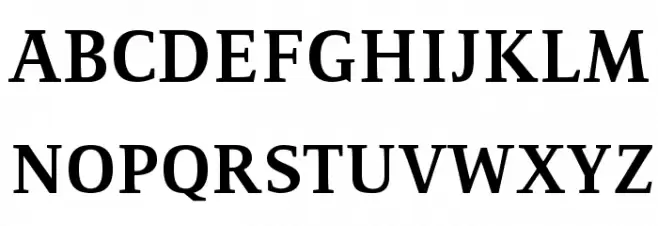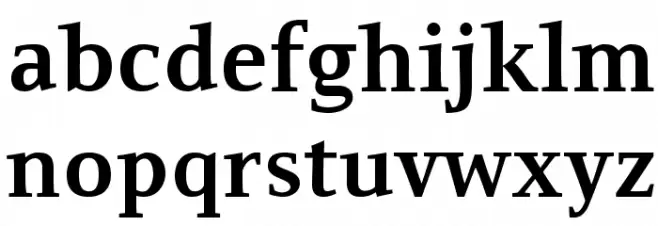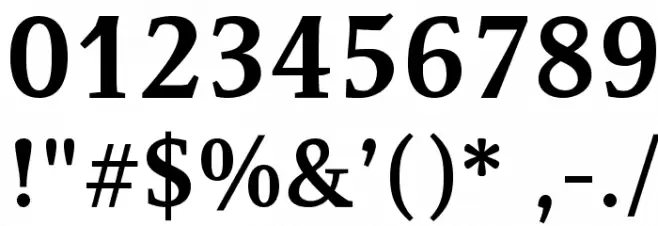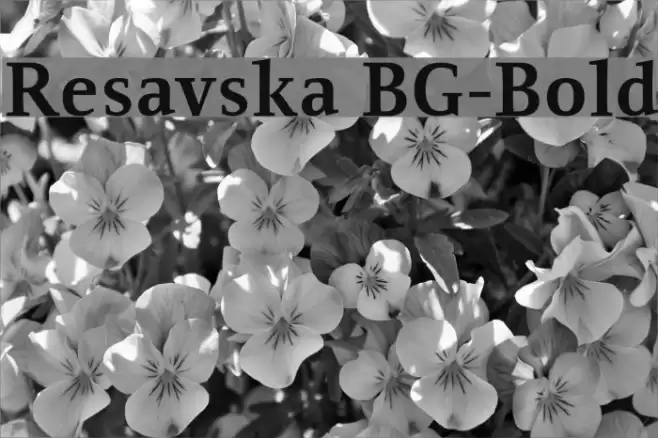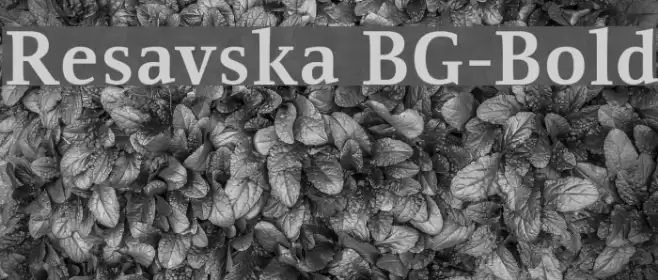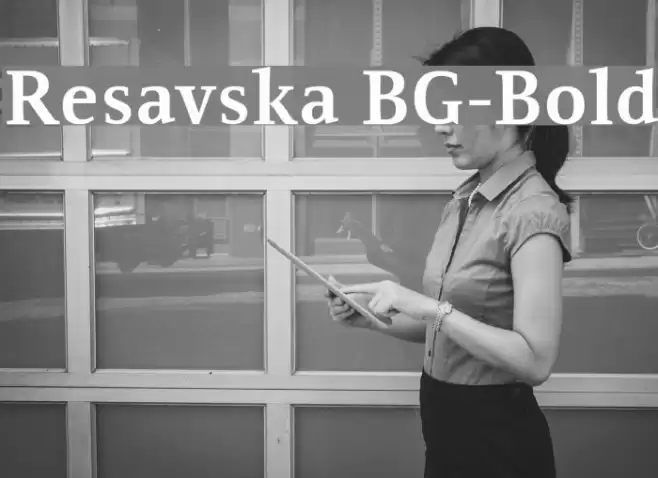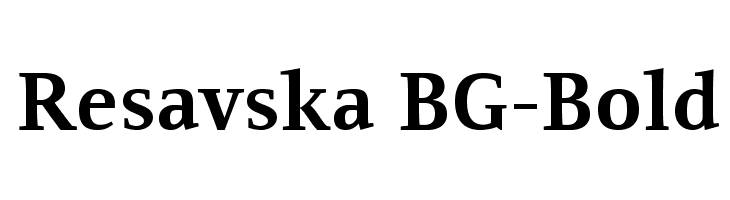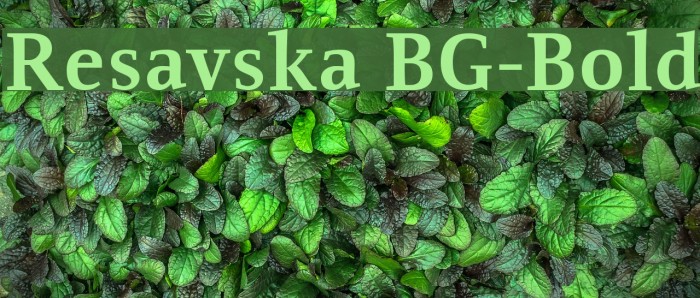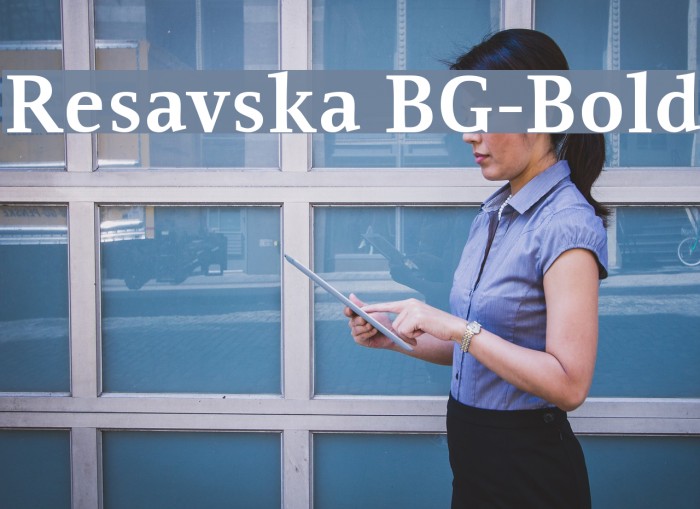
Resavska BG-Bold
This font features a classic serif style with strong, bold strokes that convey a sense of authority and tradition. The serifs are pronounced, providing a timeless elegance to the characters. The uppercase letters are tall and commanding, while the lowercase letters maintain a balanced proportion, ensuring readability. The numerals are clear and distinct, making them suitable for various applications. Special characters are well-defined, adding versatility to the font's use. Overall, this font exudes a professional and sophisticated appearance, ideal for formal documents and branding.
A bold, classic serif font with strong strokes and elegant serifs.
- Proposed Projects: Ideal for formal documents, branding, editorial design, and print media.
- Category: Serif
- Contrast: High
- Overall Style: Classic